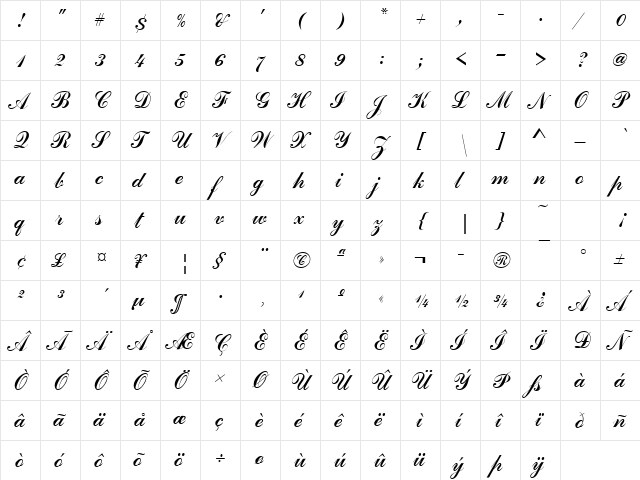
Commercial Becker Script D Regular
Design Context for Commercial Becker Script D Typeface
Commercial Becker Script D flows with the natural rhythm of handwritten lettering, making it ideal for designs that call for warmth and personal expression.
Font Pairing: Combine Commercial Becker Script D with a simple geometric sans for maximum contrast — the tension between flowing curves and clean structure is a classic typographic pairing.
Pro Tip: Use Commercial Becker Script D for short runs of text — names, titles, or taglines. Extended body copy in script faces tires the eye quickly.